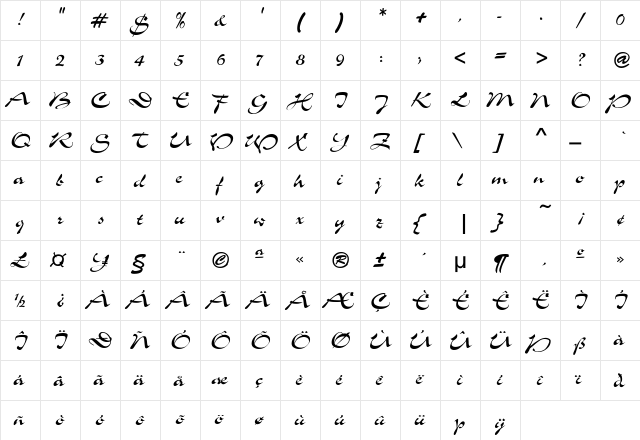
Avalon Normal Regular Font Preview
Avalon Normal Regular
Design Context for Avalon Normal Typeface
Avalon Normal is a composed and adaptable typeface that performs quietly and consistently across a wide range of design contexts.